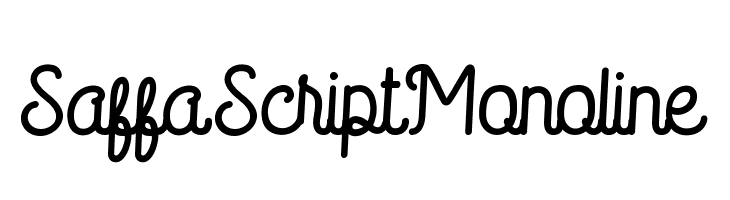
( ViactionType - Lukman Hidayat - www.myfonts.com/foundry/Viaction_Type/ )
A playful monoline script font with consistent stroke width and flowing characters.